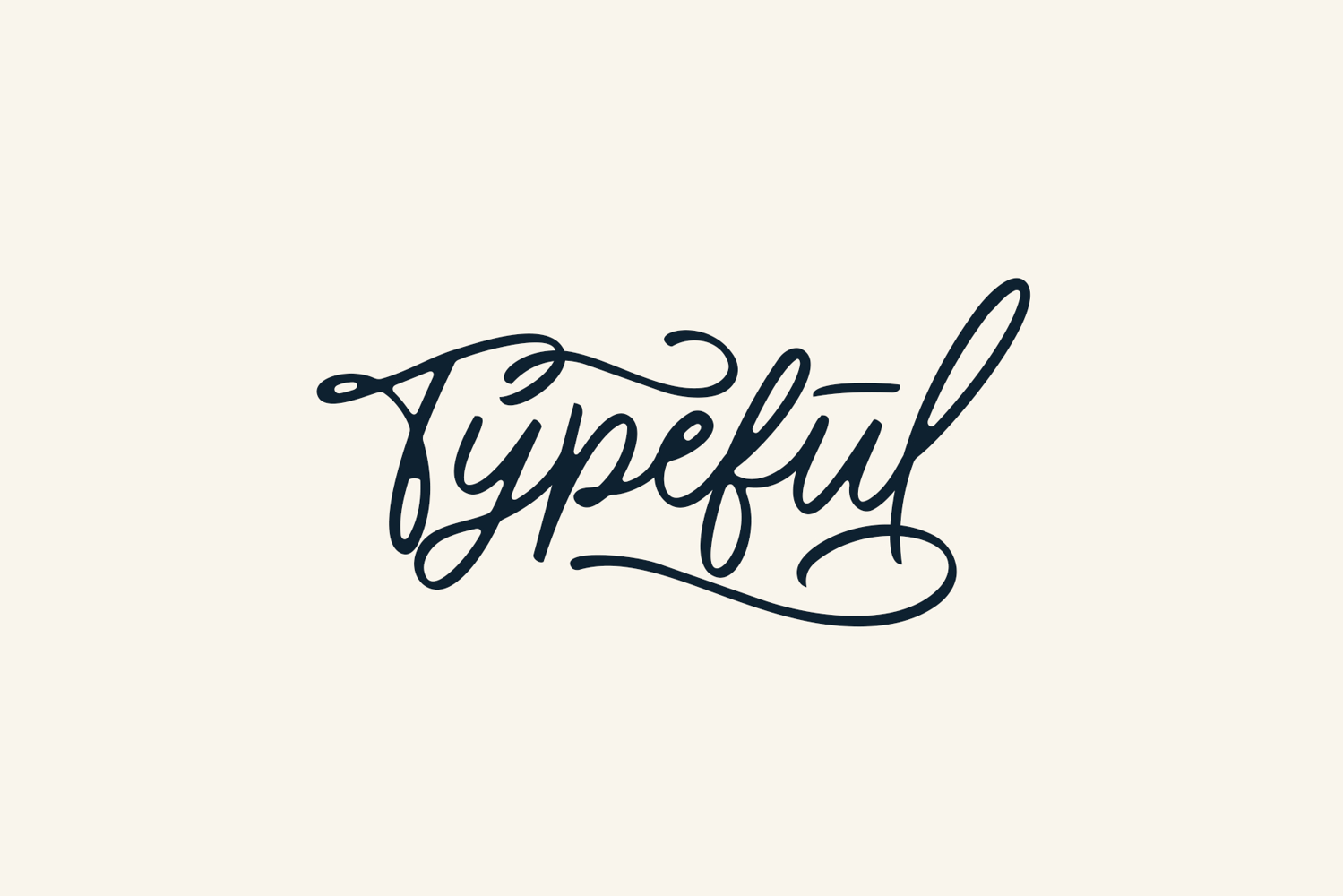
Typeful Creative Lettering Font with Swashes
Bring a natural handwritten touch to your projects with Typeful, a creative lettering font packed with expressive variations, ligatures and decorative swashes.
Instead of giving you only one handwriting style, Typeful includes 36 coordinated variations, allowing you to experiment with different moods while keeping the same recognizable lettering personality.
The extensive ligature system creates smoother and more natural-looking letter combinations, while contextual alternates help reduce the repetitive appearance often associated with digital handwriting.
For additional customization, Typeful includes alternate capitals, stylistic variations and a completely separate Swashes font filled with decorative finishing strokes.
- 36 Typeful font variations
- 1 dedicated Swashes font
- Contextual alternates
- Alternate capitals
- Stylistic variations
- Extended multilingual characters
With its large variety of forms, Typeful makes it easy to create lettering that feels customized rather than mechanically repeated.
Use the cleaner variations for simple compositions or combine alternate characters, ligatures and swashes when you want your creative lettering font to become the focal point of the design.